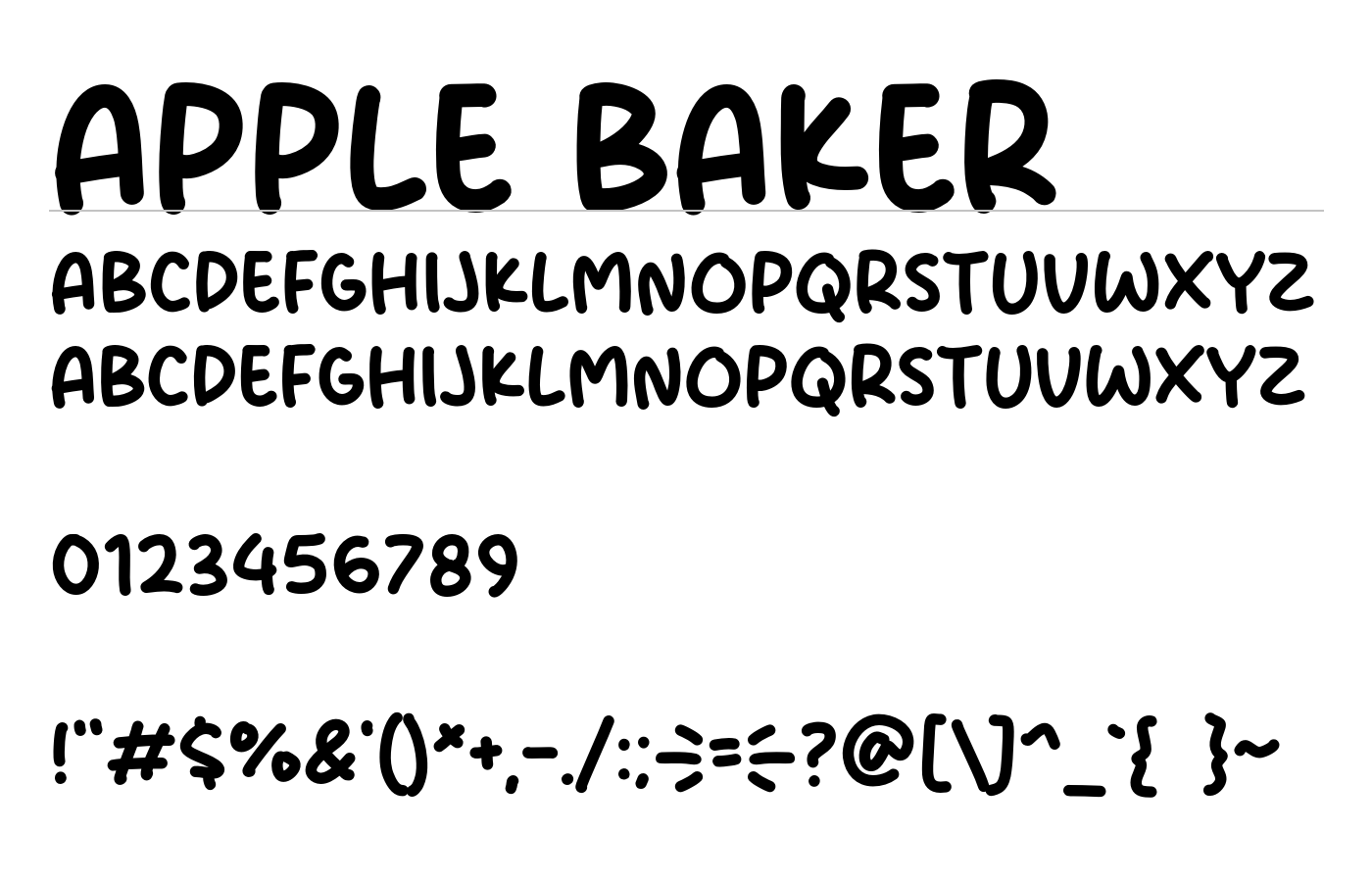
Apple Baker is a playful, casual sans serif font with rounded, bold strokes that give it a friendly, approachable feel. Its hand-drawn style and irregular shapes make it perfect for informal contexts such as children's books, fun branding, and creative projects that want to convey warmth and personality. This font works best in headlines and display settings where a lively, relaxed tone is desired.
Apple Baker Font
About Apple Baker Font